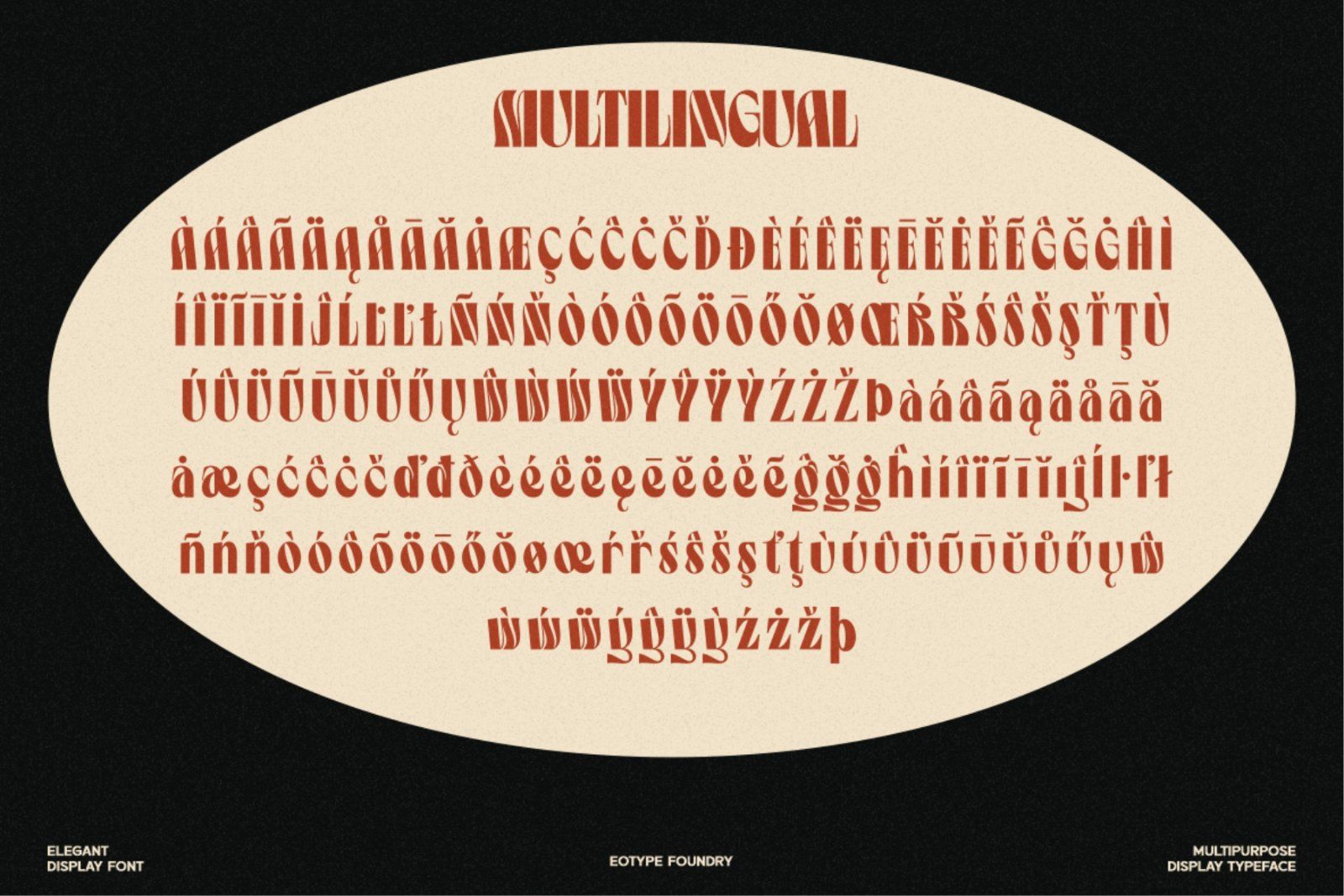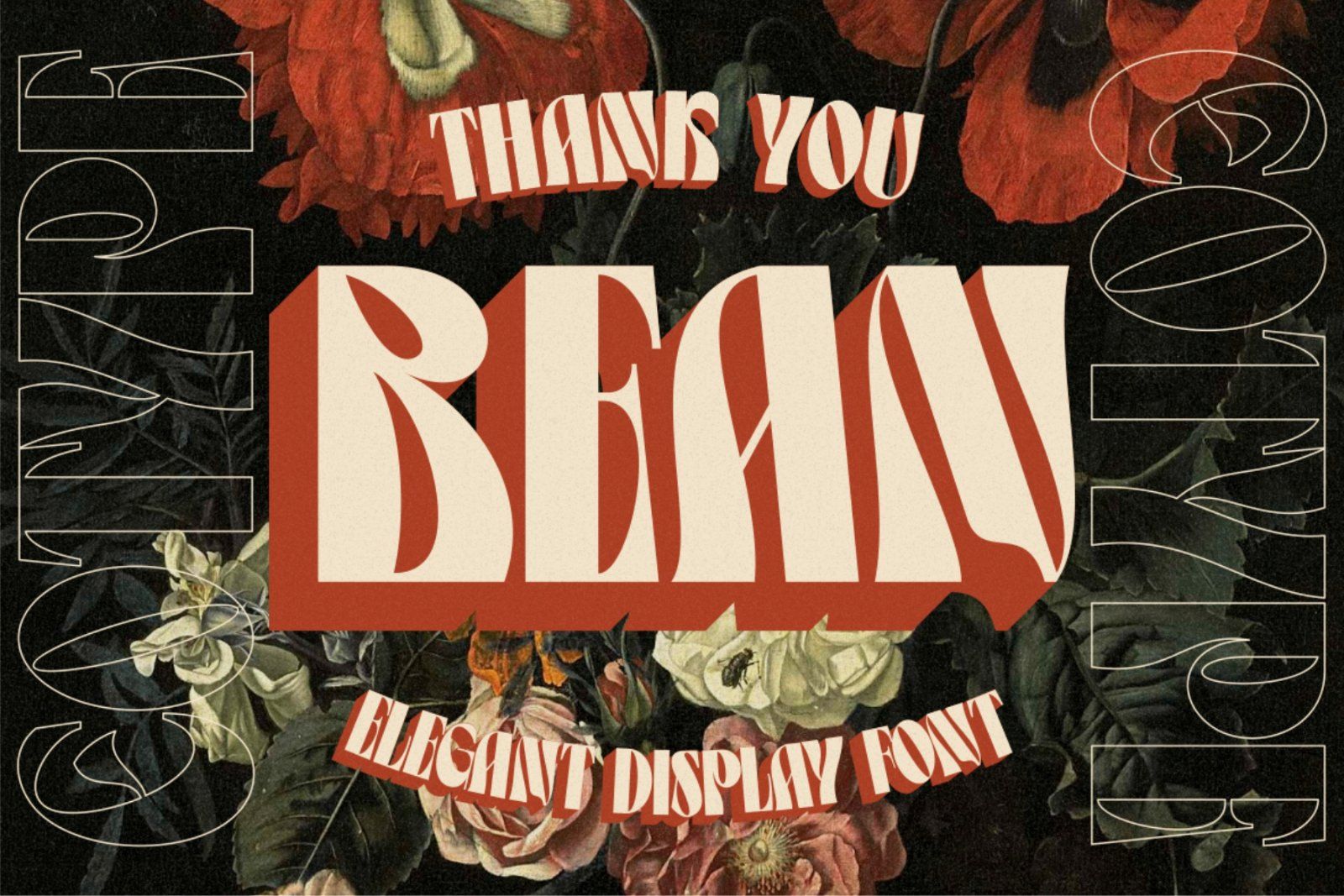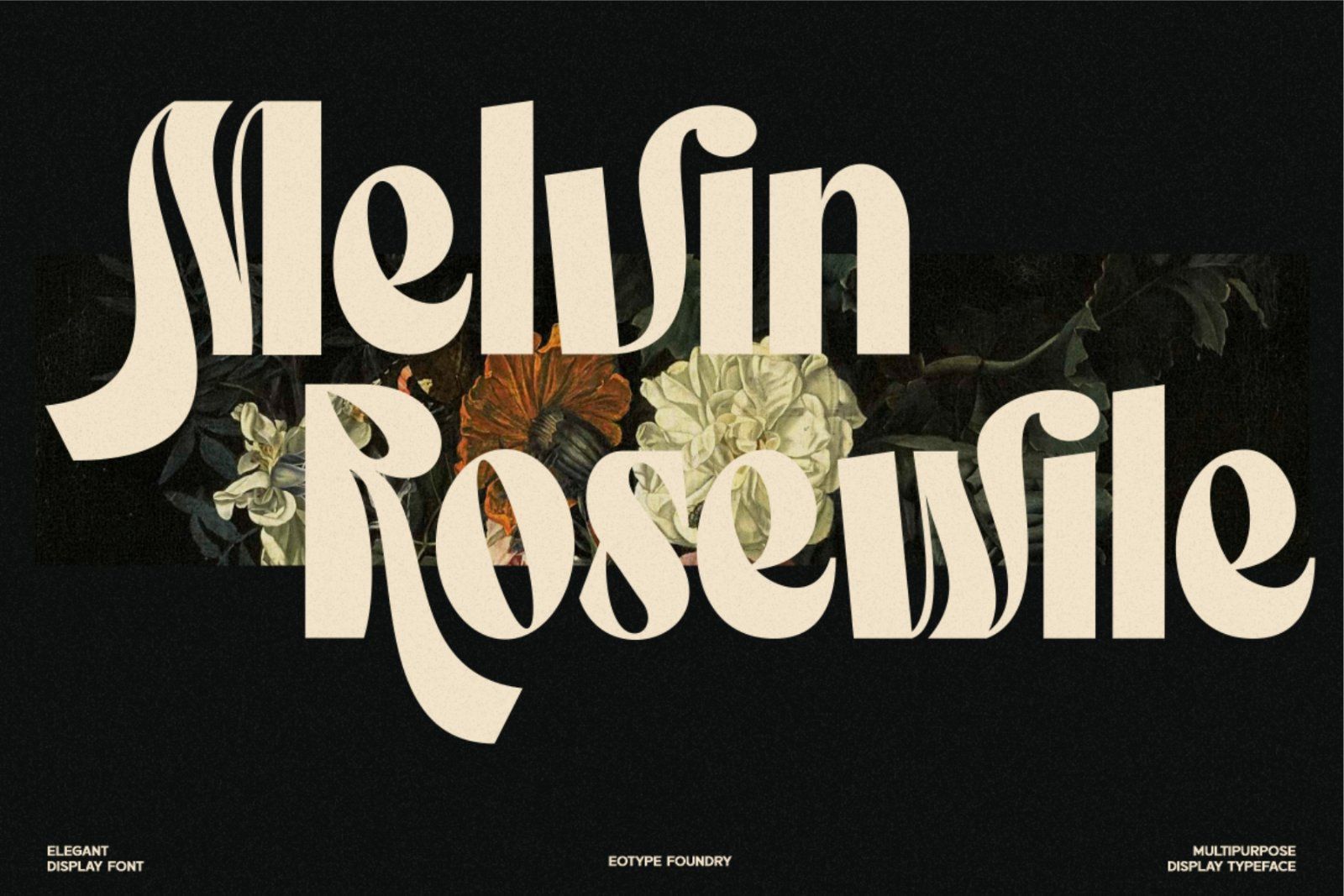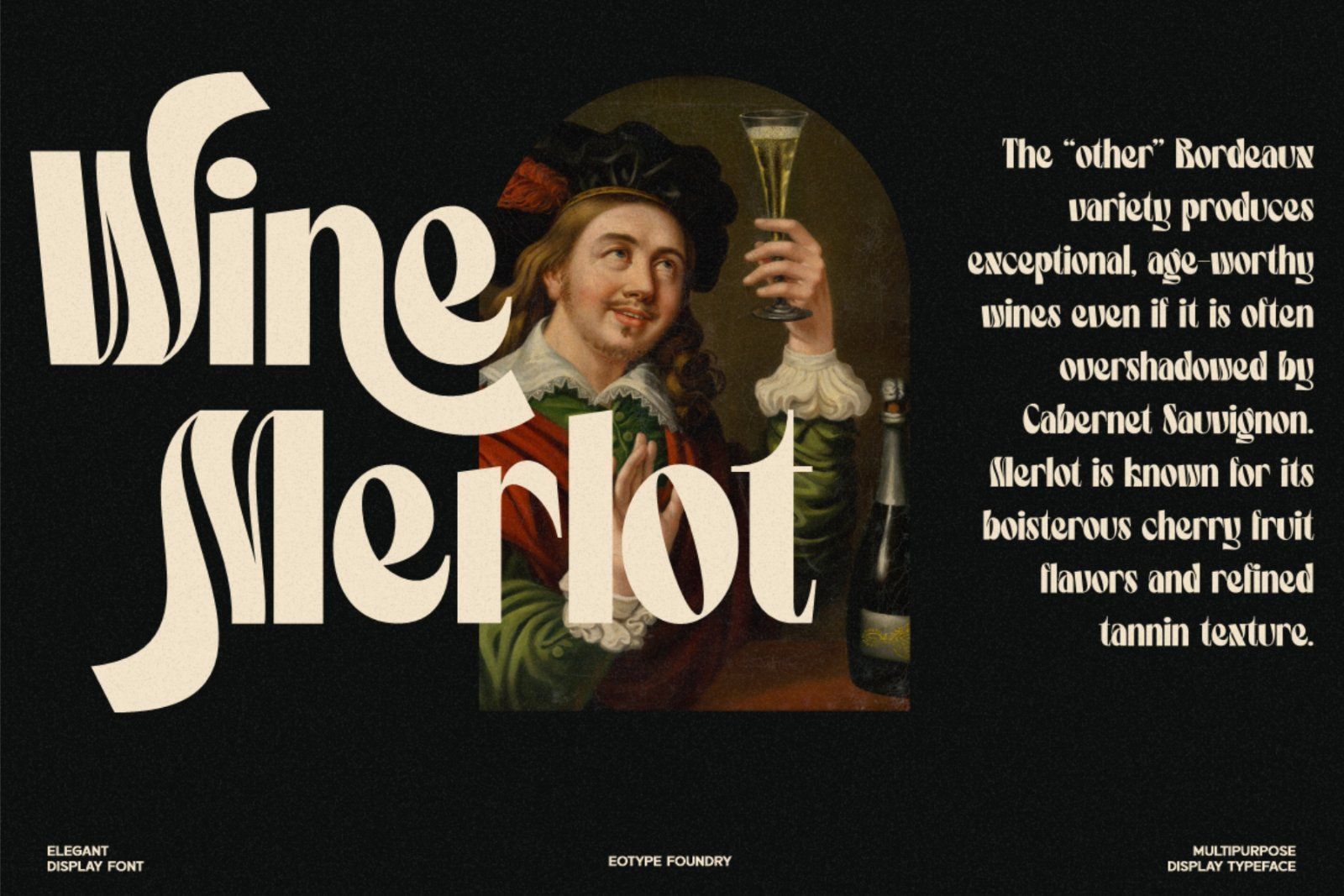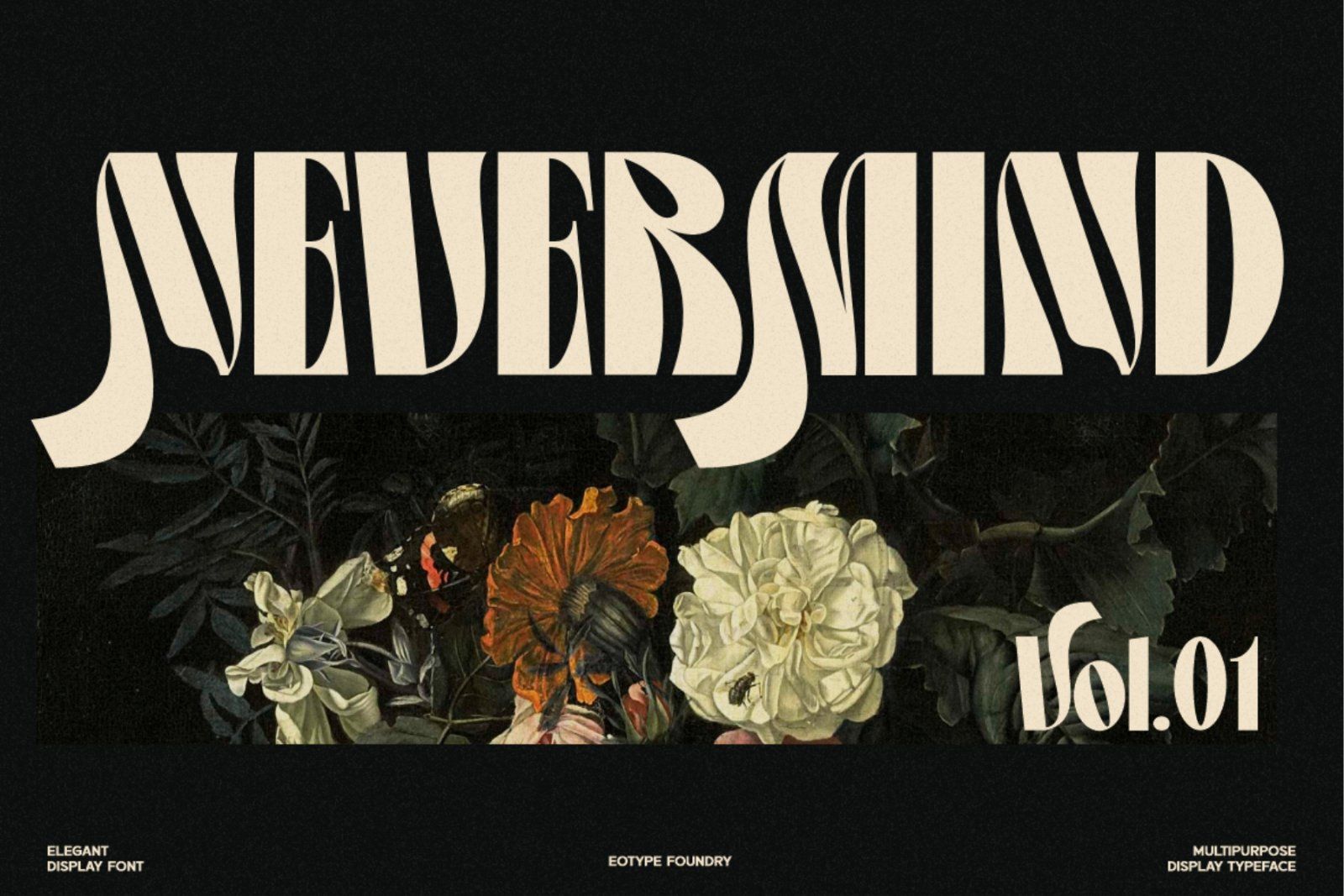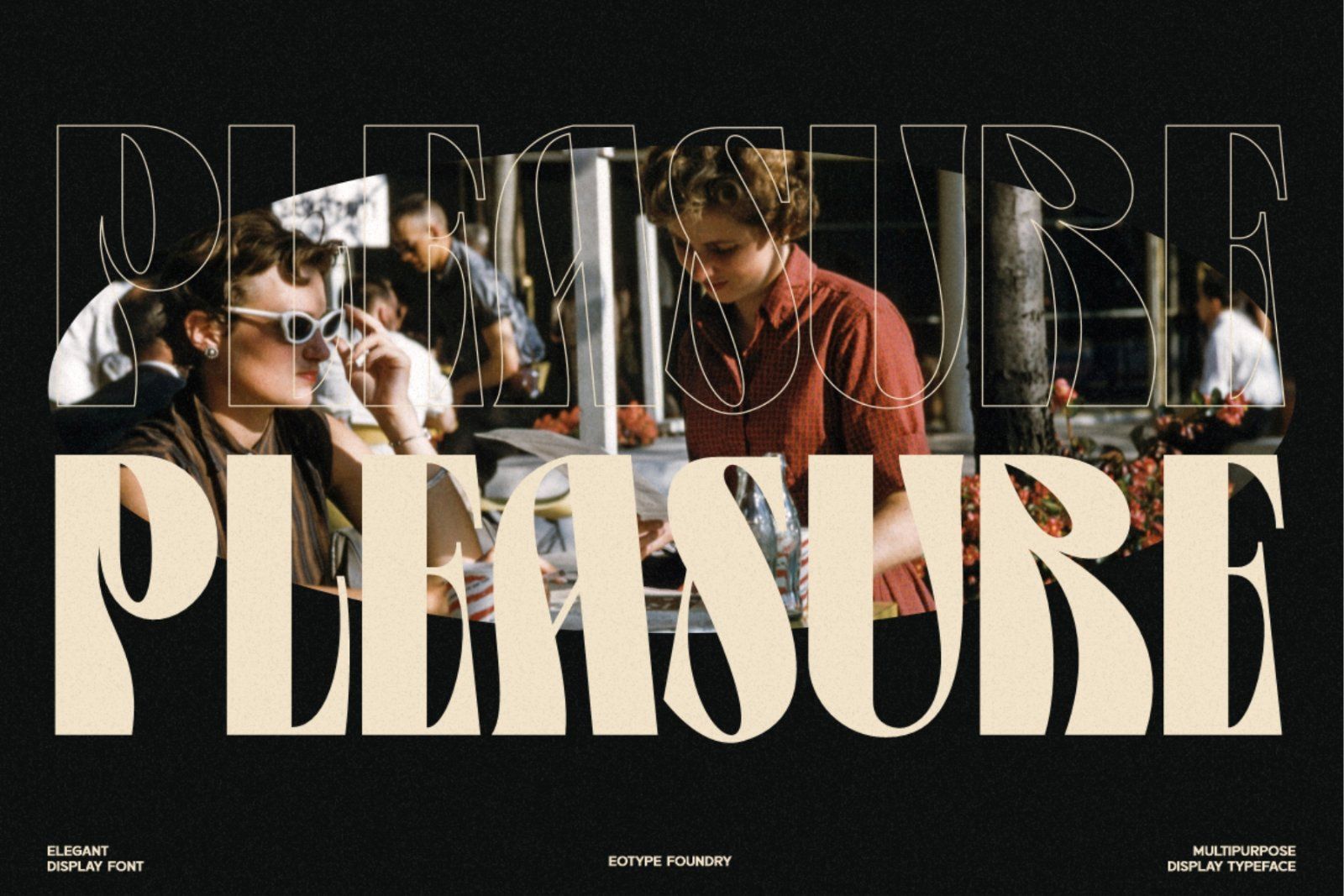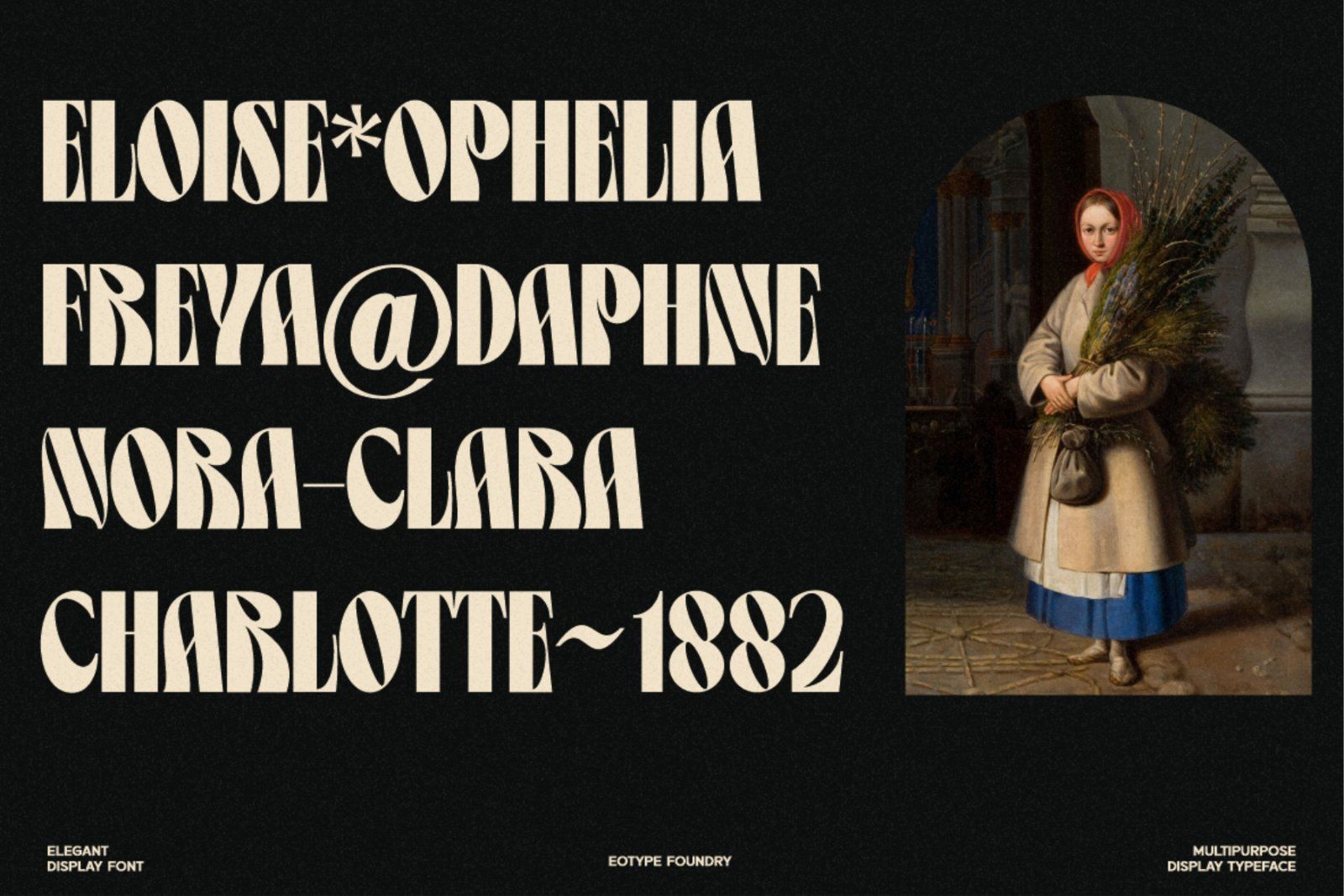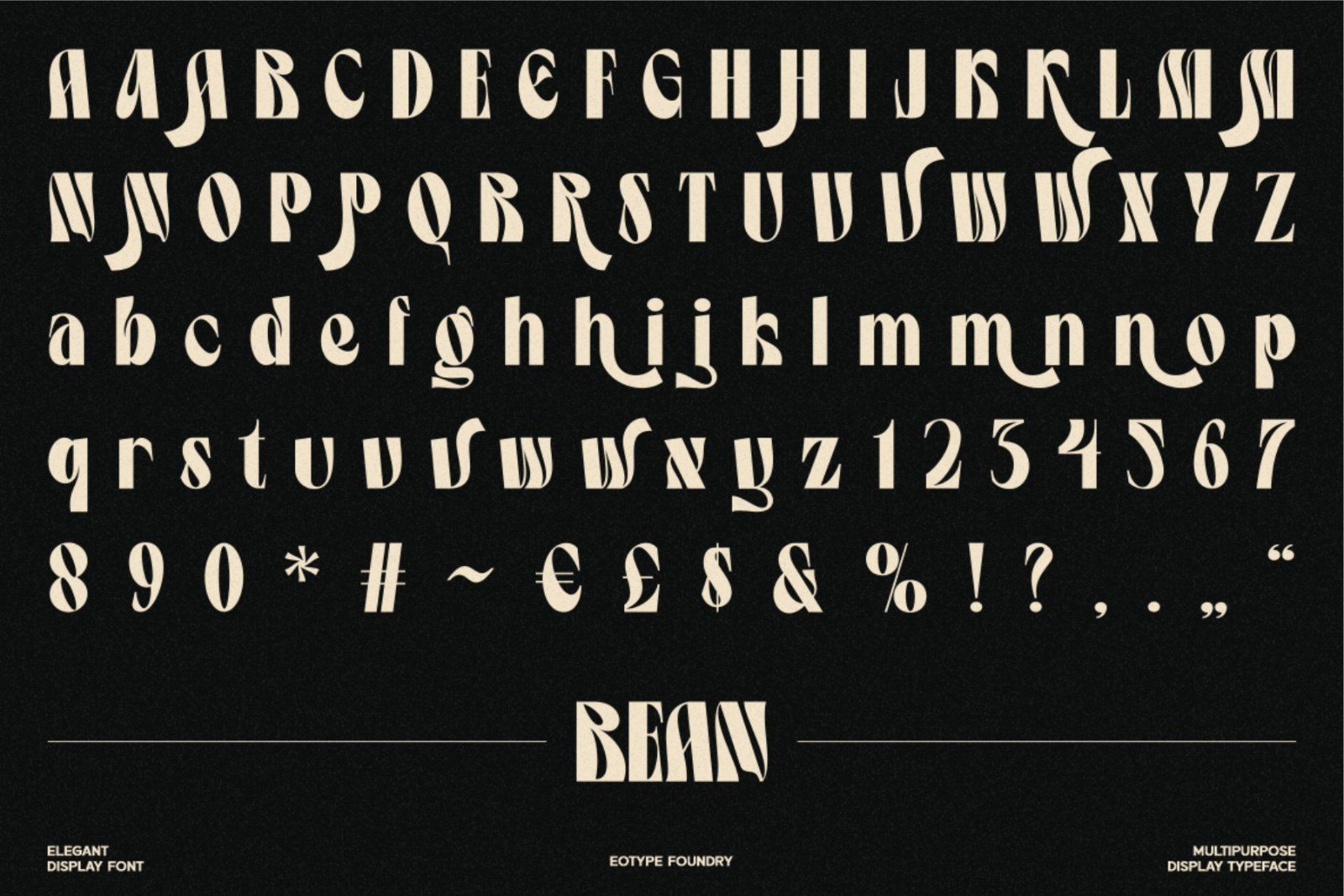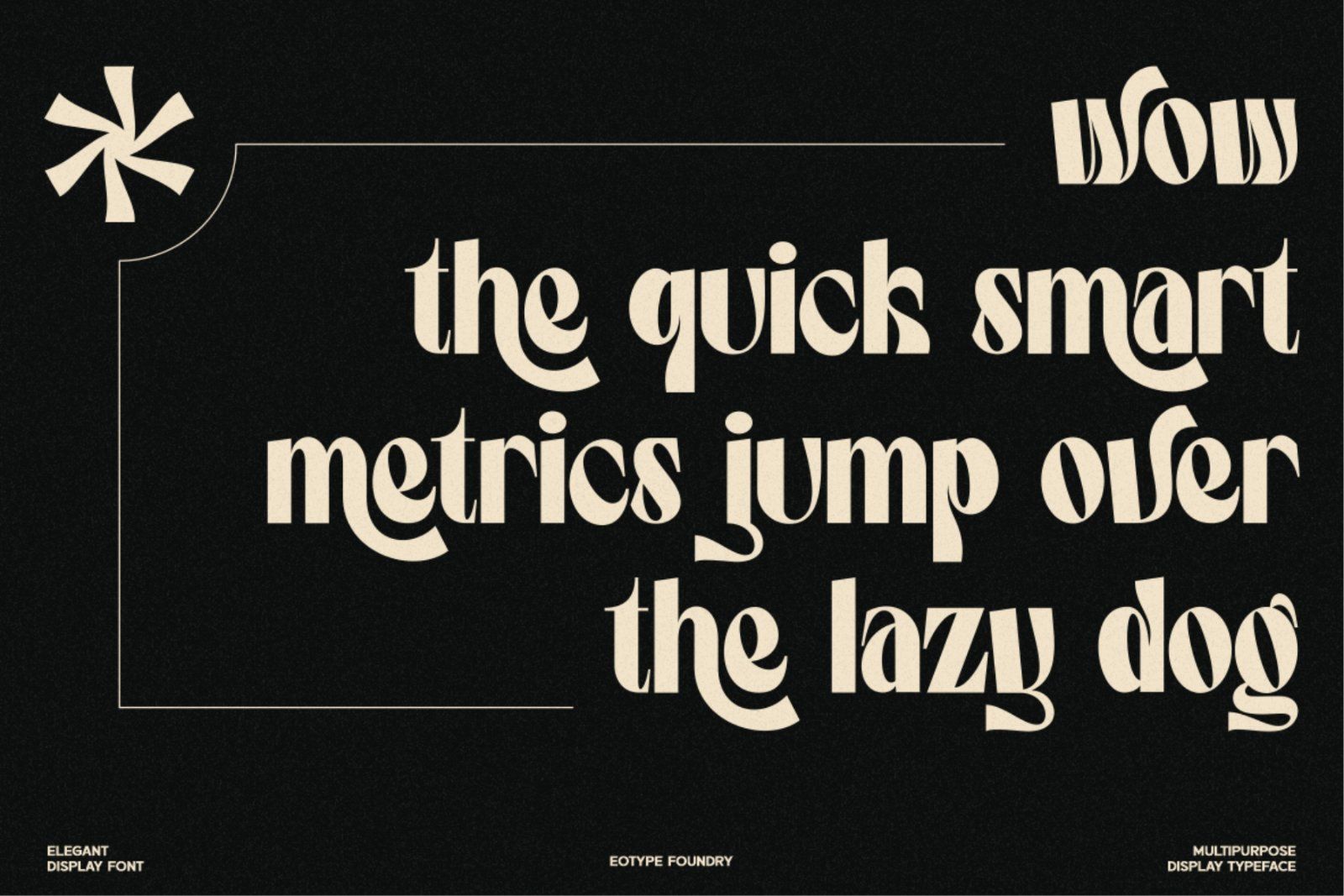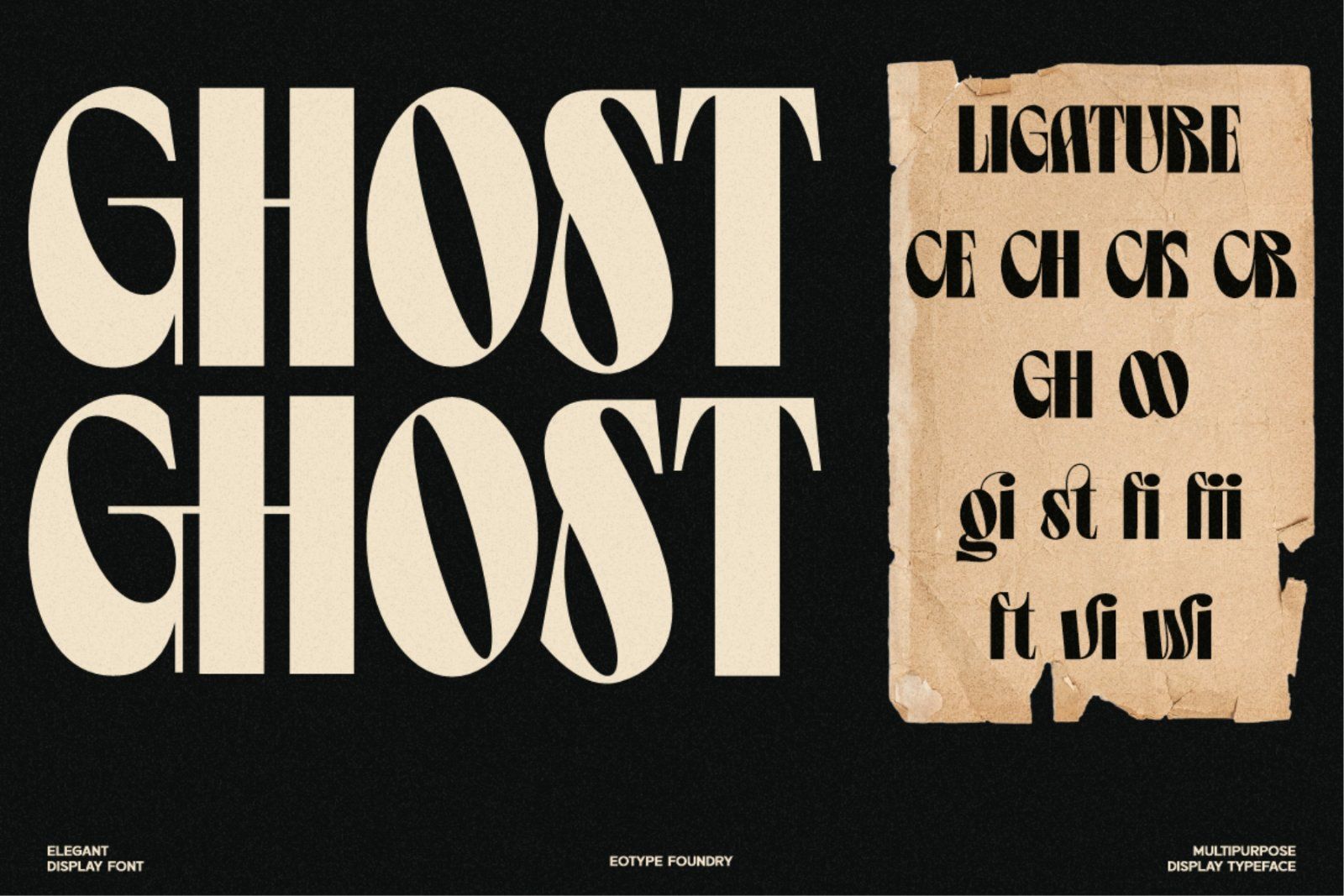
Bean is unique retro condensed display font. The Bean font has extraordinary curved characteristics with a thick size. This font is suitable for modern vintage retro designs. You can use this font on posters, banners, logos, headline projects and more. This font features alternate, ligature and multilingual supports